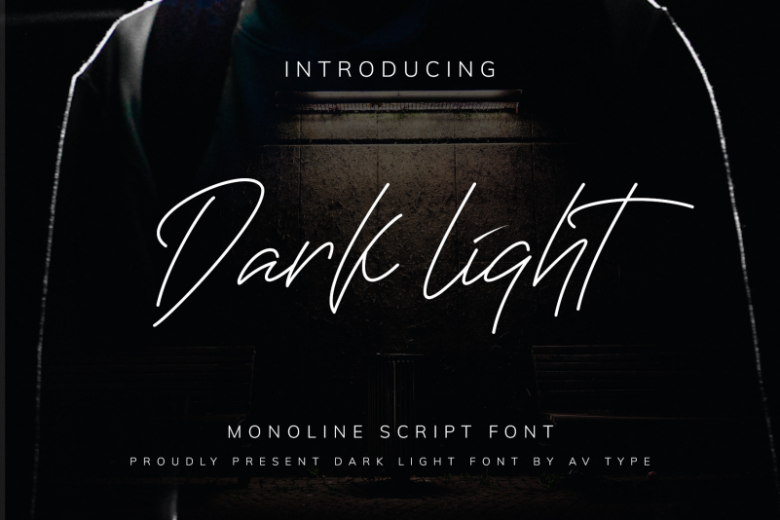
Darklight Script Font​​​​​​​
Darklight font is a monoline font that has an element of street style.
Darklight font is suitable for sports posters, magazines, Branding, watermarks, logos, quotes, print for t-shirts, merchandise etc.